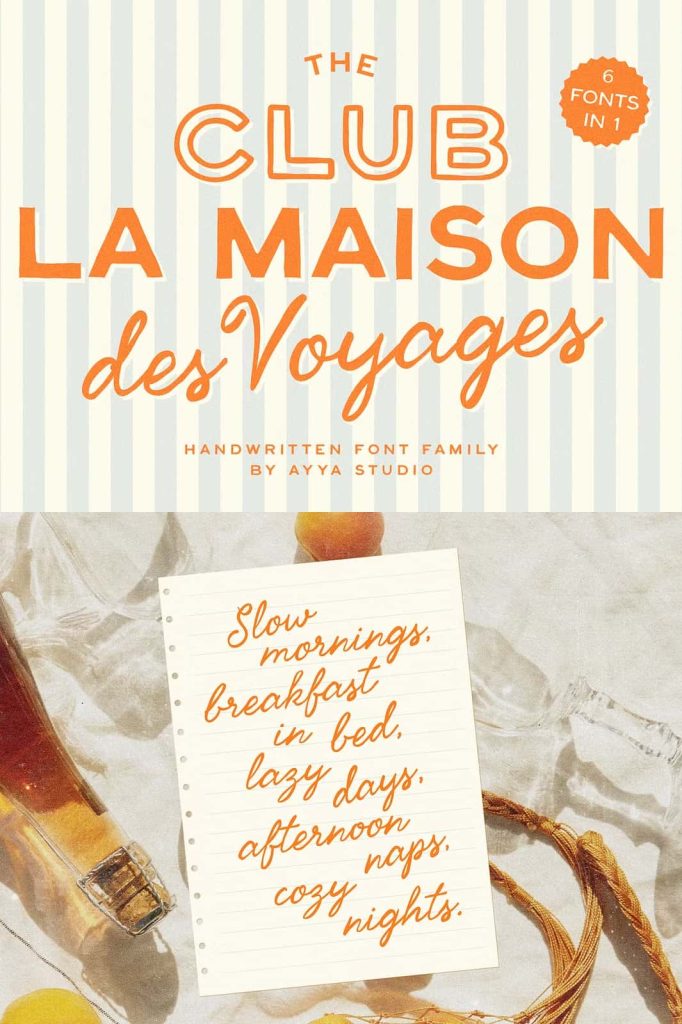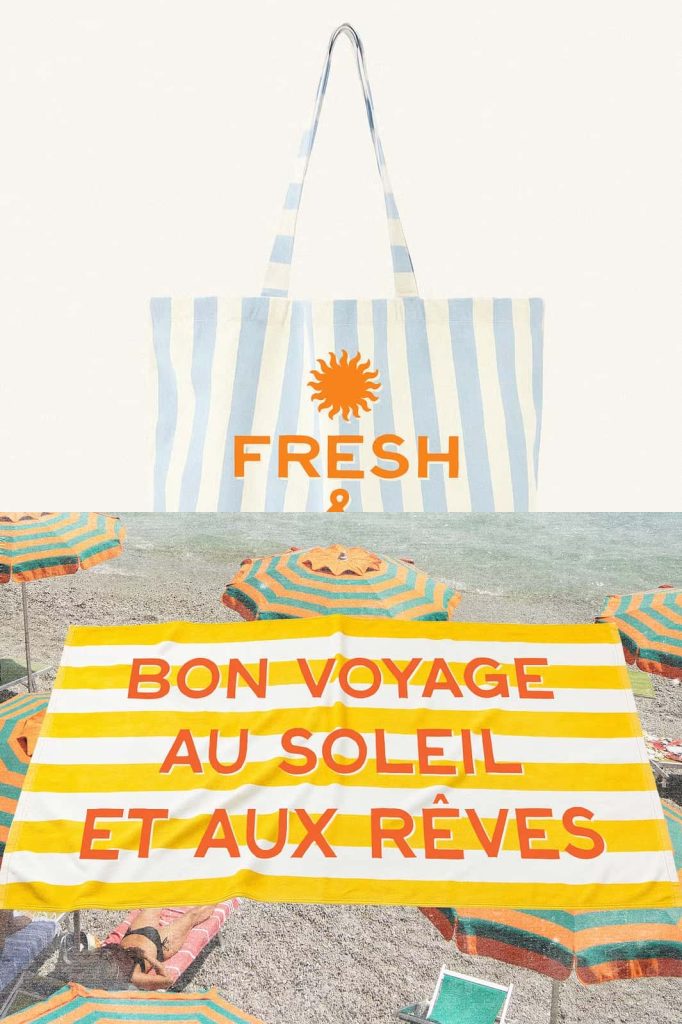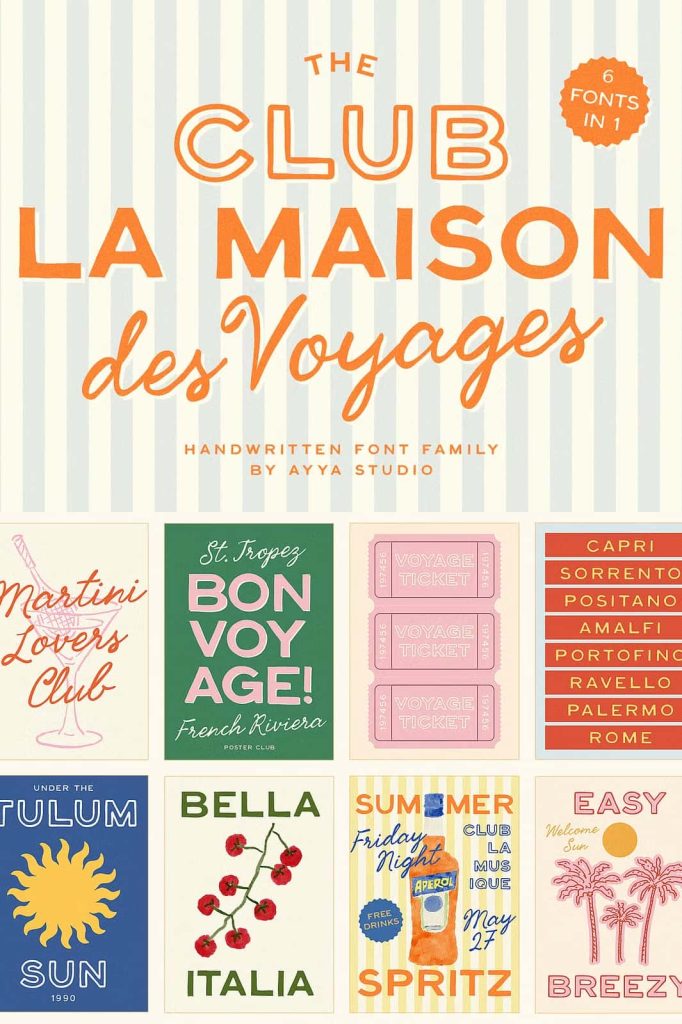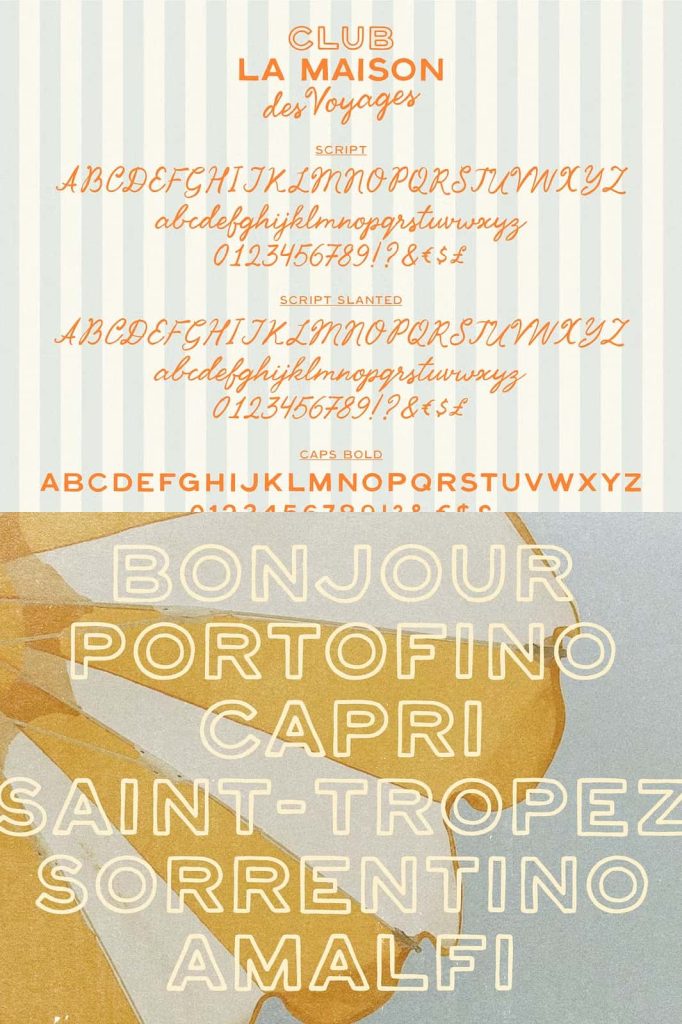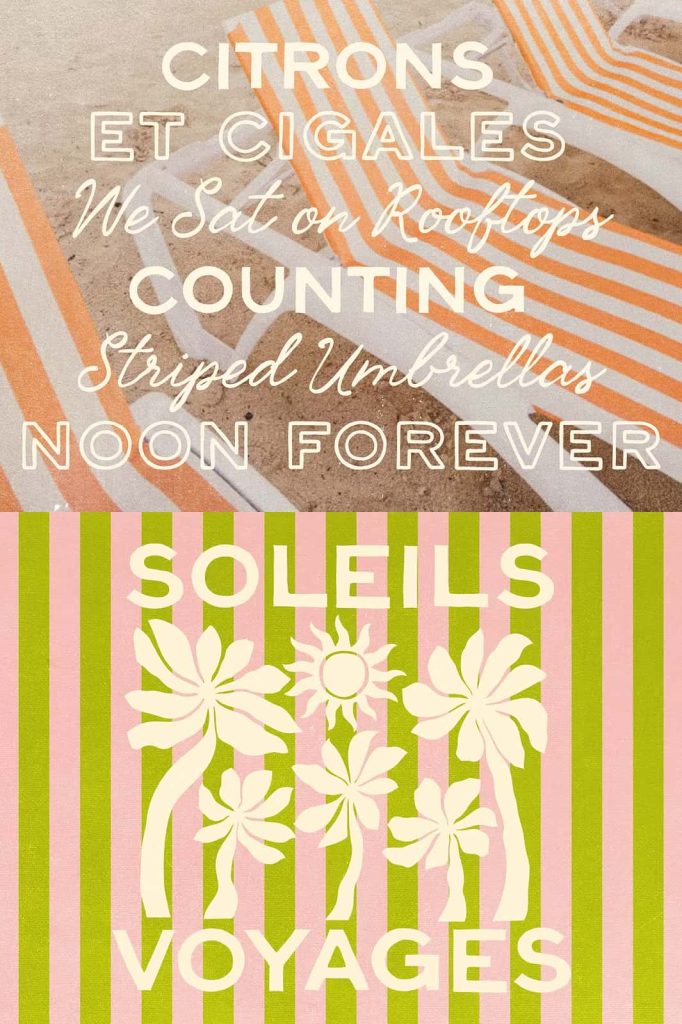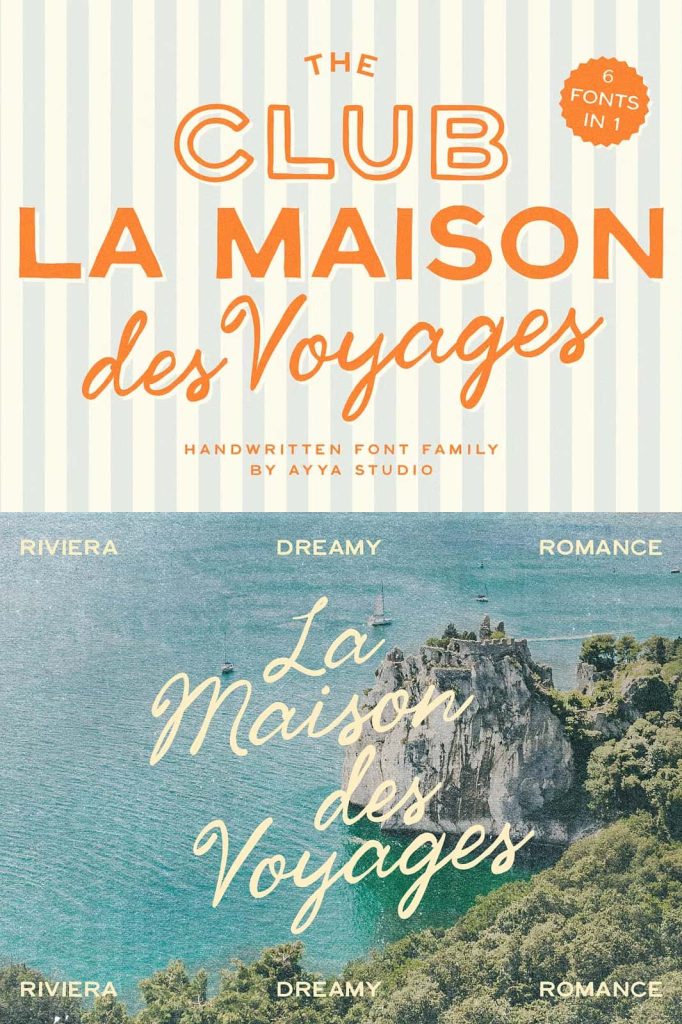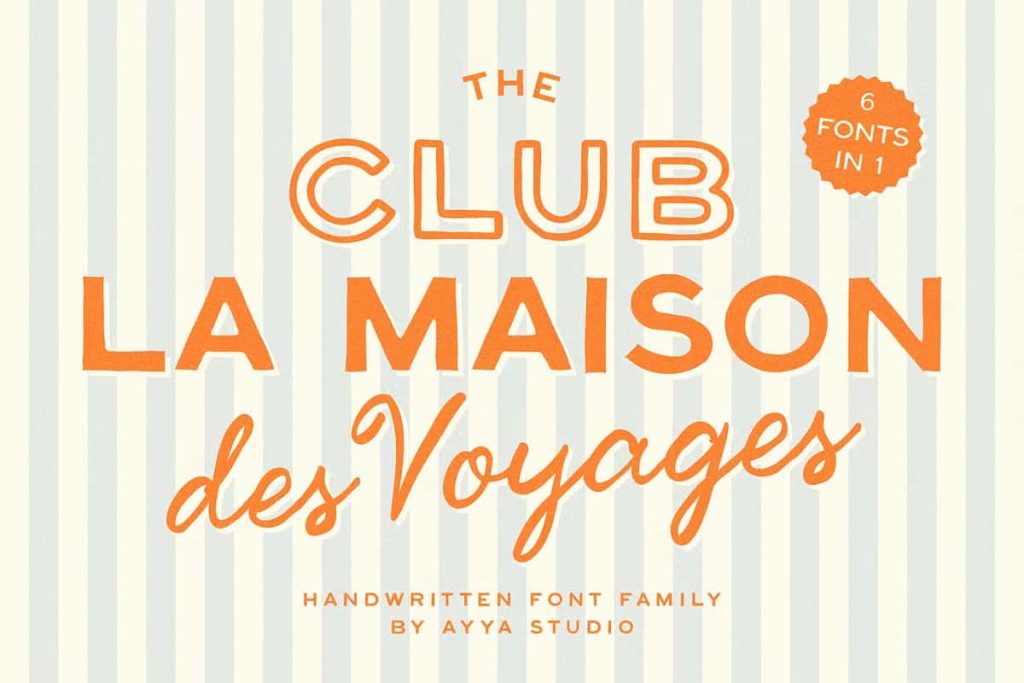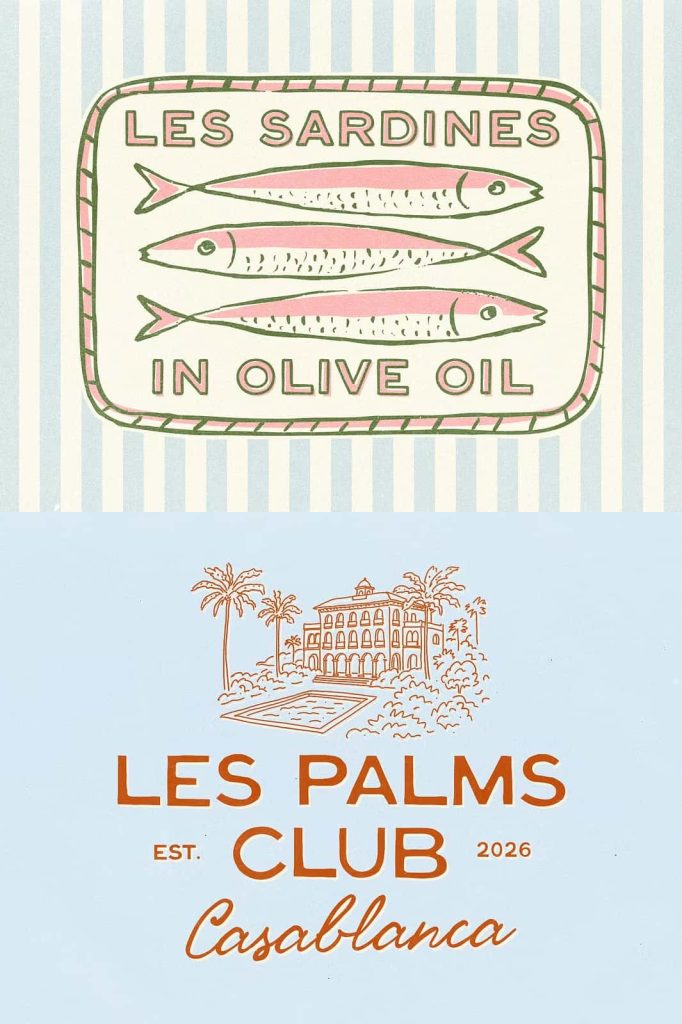
Club La Maison Des Voyages: A Vintage Travel Font Collection Inspired by Summer Escape
Club La Maison Des Voyages is a font collection designed to evoke the romance of travel, the warmth of summer, and the effortless elegance of coastal destinations. Rooted in vintage travel aesthetics, this type family captures the feeling of discovering sun-soaked places through old magazines, faded postcards, and hand-lettered signage found along seaside towns.
This collection invites designers to slow down and embrace nostalgia. It reflects an era when travel felt glamorous and unhurried, when typography carried personality and atmosphere. Club La Maison Des Voyages transforms text into an experience that feels relaxed, aspirational, and timeless.
Inspired by Vintage Travel and Mediterranean Charm
The heart of Club La Maison Des Voyages lies in its inspiration. Old travel magazines, classic tourism posters, and beach club branding heavily influence its design language. The letterforms echo hand-painted signs and editorial typography from mid-century publications that celebrated leisure, culture, and exploration.
The collection captures the dreamy charm of Mediterranean holidays. Imagine coastal villages with sun-bleached walls, striped loungers lining the beach, and cafés overlooking the sea. These visual memories shape the font’s character and give it a relaxed yet refined personality.
A Mood Shaped by Sun, Sea, and Nostalgia
Club La Maison Des Voyages is more than a set of fonts; it is a mood. The typography reflects warm coastal winds, salt in the air, and the gentle rhythm of summer days. Each letter carries a subtle softness that mirrors the way sunlight fades ink on postcards and signage over time.
This nostalgic quality makes the collection ideal for projects that aim to tell a story or evoke emotion rather than simply convey information.
Perfect for Travel Branding and Lifestyle Design
This font collection excels in travel branding, hospitality projects, and lifestyle-focused design. It works beautifully for boutique hotels, beach clubs, travel agencies, cafés, and resorts that want to communicate a sense of escape and refined leisure.
Designers can use Club La Maison Des Voyages for logos, editorial layouts, packaging, posters, menus, and promotional materials. Its vintage tone adds depth and authenticity, helping brands feel established, curated, and thoughtfully designed.
Designed for Editorial, Packaging, and Visual Storytelling
Club La Maison Des Voyages performs exceptionally well in editorial contexts. Magazine spreads, lookbooks, and travel guides benefit from its expressive letterforms and relaxed elegance. The font collection supports storytelling by enhancing visual narratives rather than overpowering them.
In packaging and print design, the typography adds a handcrafted, destination-inspired feel. It pairs naturally with textured paper, soft color palettes, and photographic elements drawn from coastal and travel themes.
A Versatile Collection with a Cohesive Identity
Despite its strong thematic roots, Club La Maison Des Voyages remains highly versatile. Designers can use it as a primary display font or as an accent to complement clean sans-serif or serif typefaces. This flexibility allows it to fit seamlessly into modern design systems while retaining its vintage soul.
The collection maintains consistency across different applications, making it easy to build cohesive branding and visual identity systems.
Why Choose Club La Maison Des Voyages?
Club La Maison Des Voyages offers designers a way to communicate atmosphere, emotion, and aspiration through typography. It captures the essence of travel as a lifestyle rather than a destination, blending nostalgia with timeless elegance.
If your project seeks to evoke summer escapes, vintage travel culture, and Mediterranean charm, this font collection provides the perfect typographic foundation to bring that vision to life.